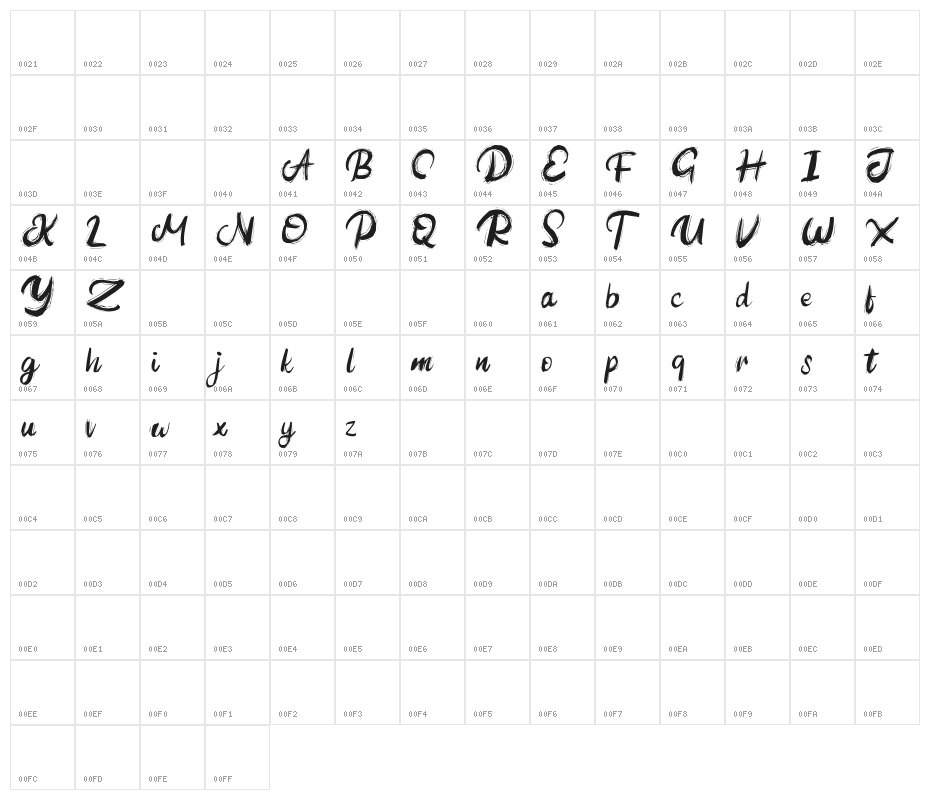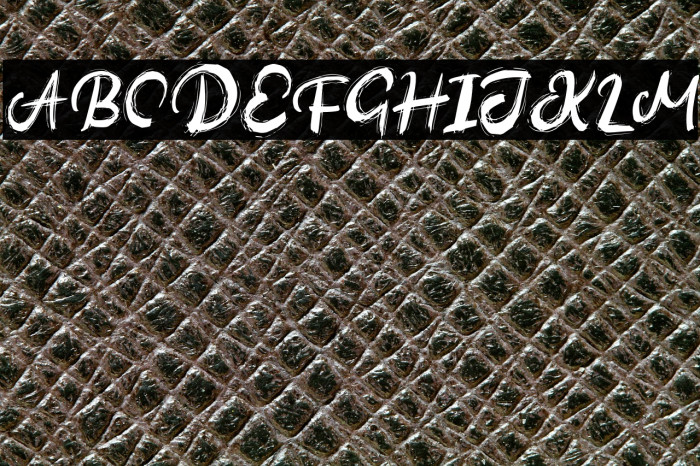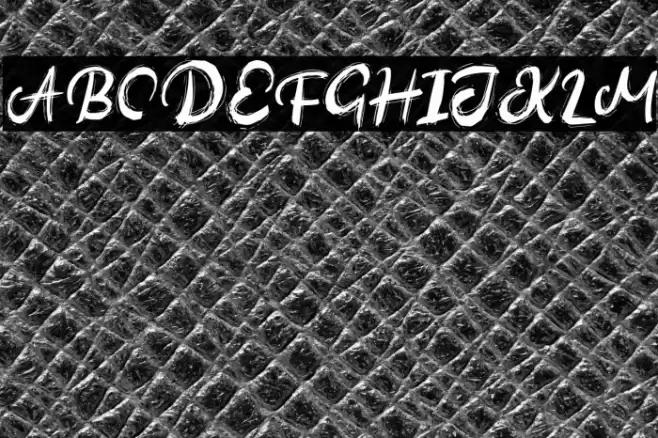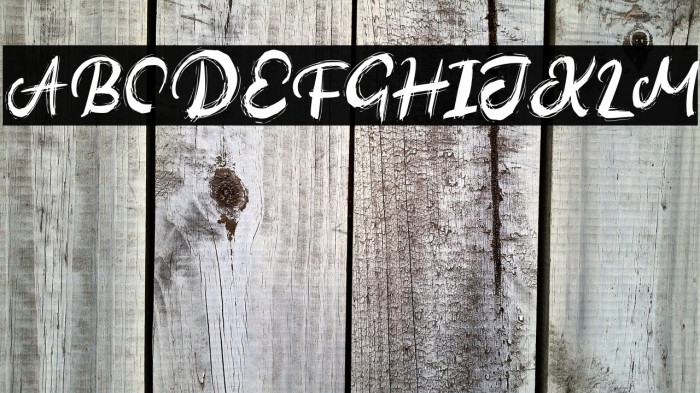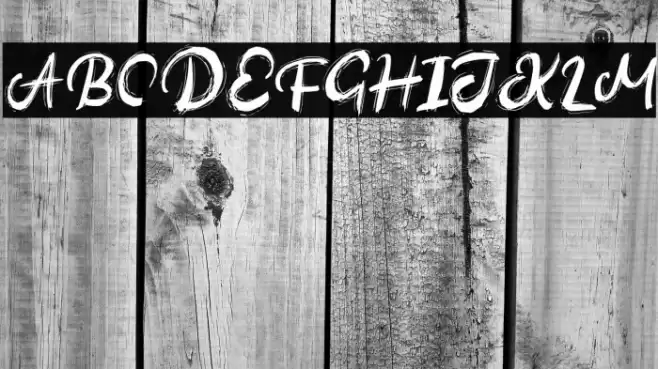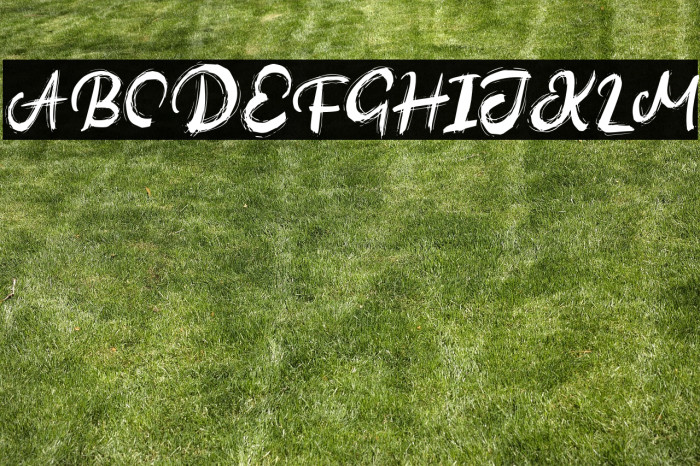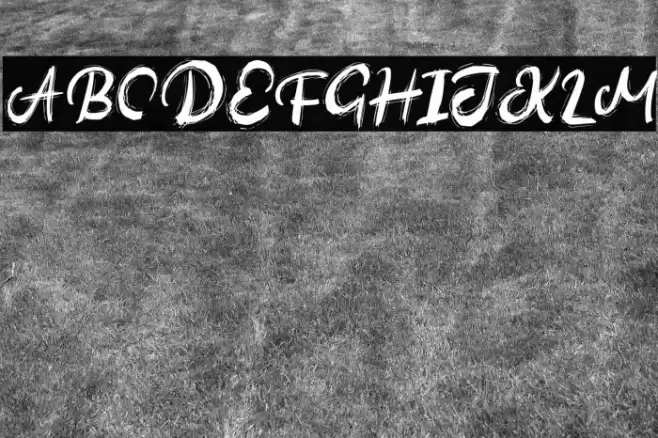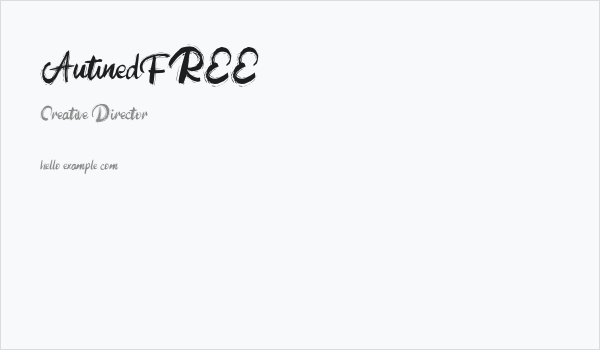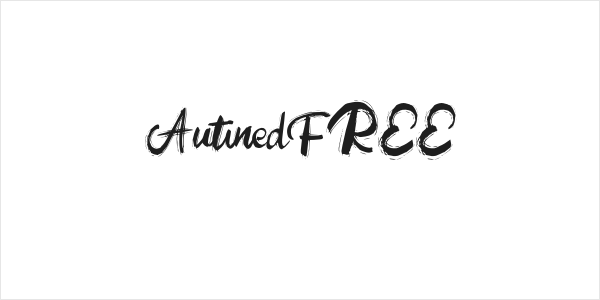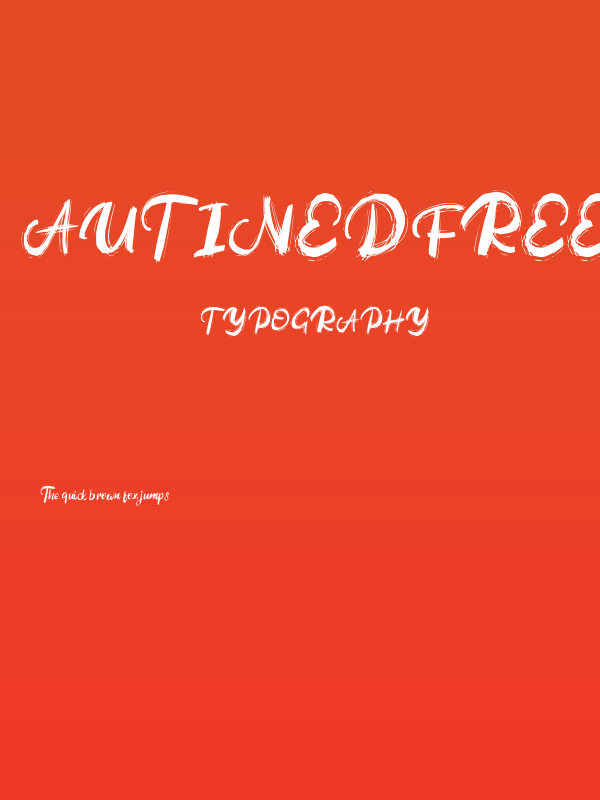
AutinedFREE Font
AutinedFREE Description
This font features a bold, brush-stroke style that exudes energy and dynamism. The characters are crafted with a rough, textured appearance, giving them a hand-painted look. The uppercase and lowercase letters maintain a consistent style, with sweeping curves and sharp angles that add a sense of movement. The font's unique character is further enhanced by its irregular edges, which mimic the natural flow of ink or paint. This artistic approach makes it ideal for projects that require a creative and expressive touch.
| Proposed Projects | Ideal for artistic projects, posters, branding, and any design that requires a bold, expressive typeface. |